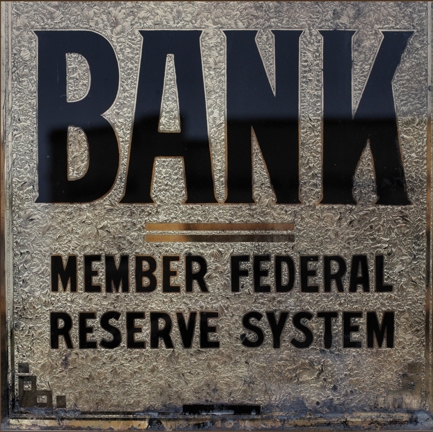
OK, so a while back I see this photo of a building.
I see something in the photo.
No Way!
Way!
This Building, and the firm in it are still in business.
Can anyone see what I see in the photo?
Me Likes a Good Mystery...Hows About You?
I'll bite. I enlarged the photo, but it is not hi-rez.
But from what i can tell it looks to be a bank building.
I may be nutz but I'm guessing that it is the same bank that Rick had a glue chipped advertising sign of, hanging in his shop. I have a picture of it somewhere.
I know this is a WILD guess, due to the span of years involved. It would have to be some king of time warp or something if I am correct.
Yes, its a bank building. And "no" you're not nutz.
And I do not think Rick had anything to do with it.
The Bank was organized in 1919, and it's building erected in 1924.
Signs were ordered. And once received...placed on either sides of the main entrance doors.
Where they remain to this day.
Now you know that. But what kind of signs are they and who made them?
And for extra points...where is this building?
A clue is....a lot of you have seen this building and not even known it.
Well, once again, the photo is bad for enlarging- but...
Judging from how well those signs have withstood the ages, I would guess them to be either cast or acid etched brass with a black lacquer in fill. Can't tell if they are curved or flat.
They may have been made by Gorham Bronze Manufacturing(1905-1978).
As far as the location, the road is paved with bricks, so i would throw a guess at Kansas.
As far as how I might have seen it before, without knowing, I would guess I would have seen it in a period movie, something like Bonnie and Clyde or maybe Dillinger with Johnny Depp.
Am I right? Am I close??
Yes, the photo is bad for enlarging...I planned it that way.
Brass Tablets....Nooooo.
These are not Brass or Bronze...They're Glass!
And No...not Kansas City or Dillinger.
Here's another hint...try looking at it with your "good eye".
Looks like the building that David Butler uses on his web site to me.
It might be...I don't remember what his building looks like.
Here's another hint...The building is from a movie that a few of the users of this site are familiar with.
Now use your "Good Eye" and see if you can figure it out.